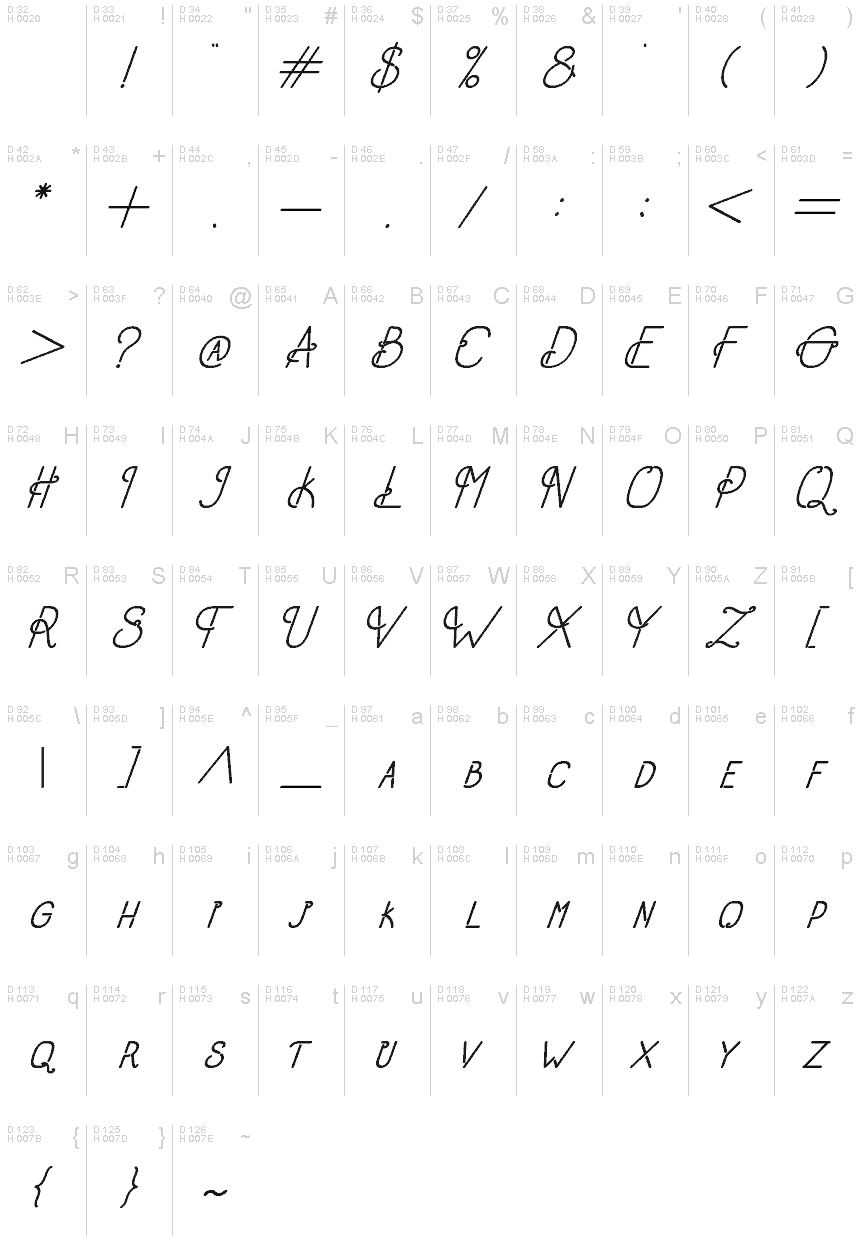
Old Alpha Italic Regular
Old Alpha Italic is a captivating display font that exudes timeless elegance and sophistication. Featuring a delicate, calligraphic style, this font boasts striking, flowing letter forms that effortlessly convey a sense of refined artistry. The graceful, italic slant and the subtle variations in stroke thickness add depth and character, making Old Alpha Italic a versatile choice for a wide range of design applications.
From elegant wedding invitations and high-end editorial layouts to chic branding and packaging, this font's distinctive personality can elevate any project with its timeless appeal. Its ability to convey both a sense of tradition and modern sophistication makes Old Alpha Italic a valuable asset in the designer's toolbox, allowing for the creation of visually striking and memorable designs.